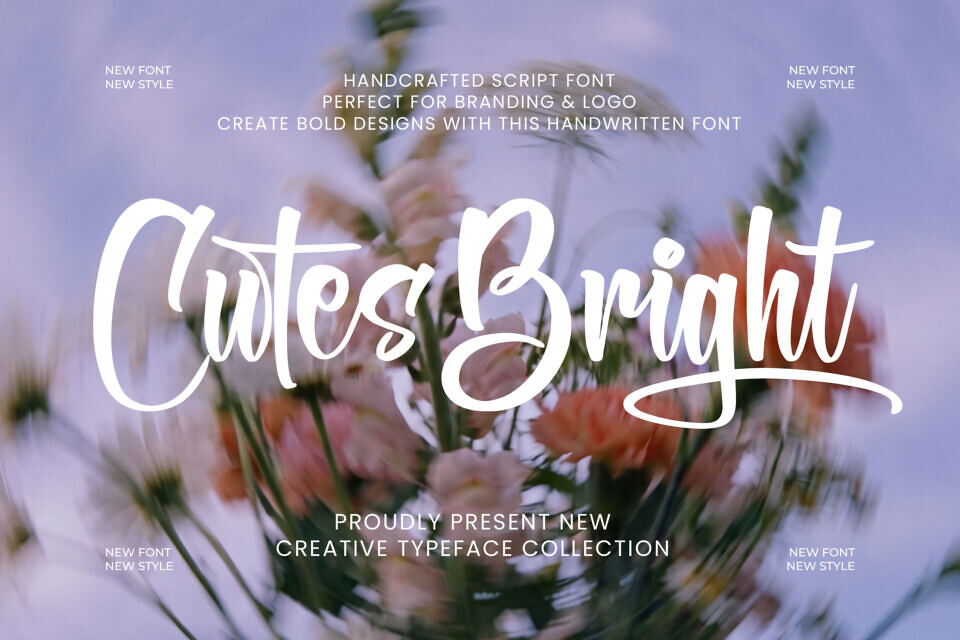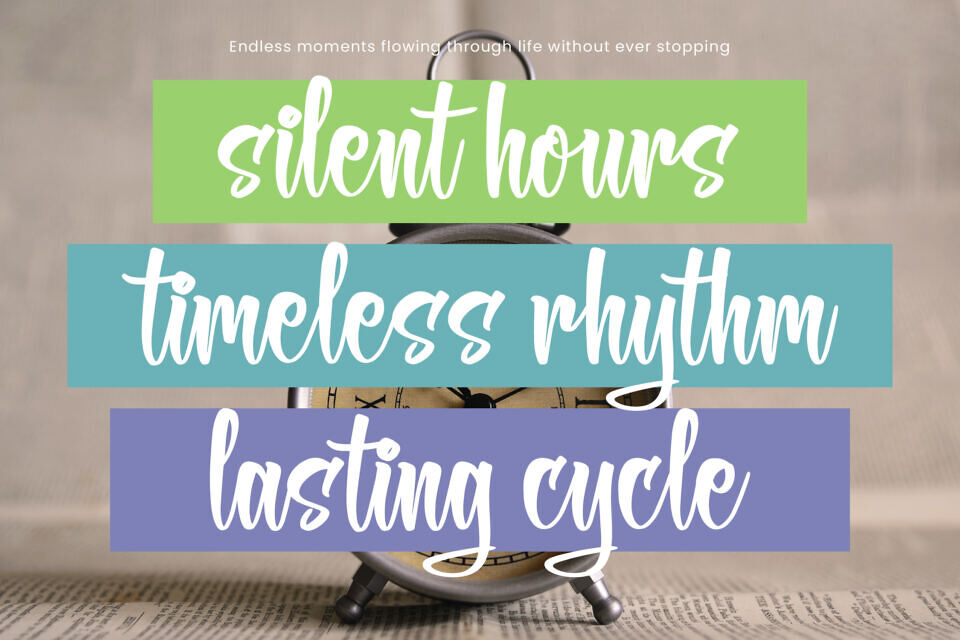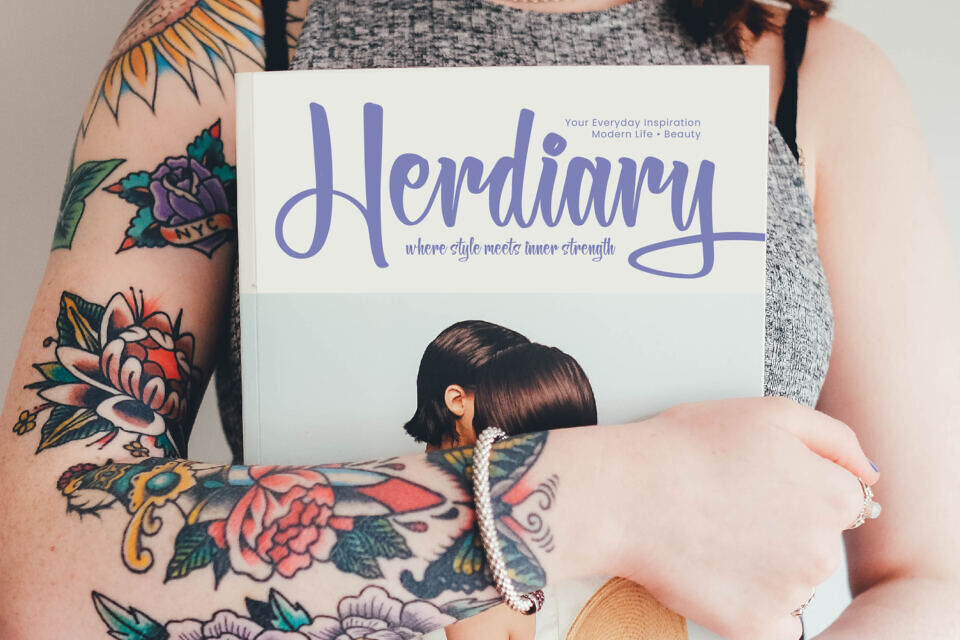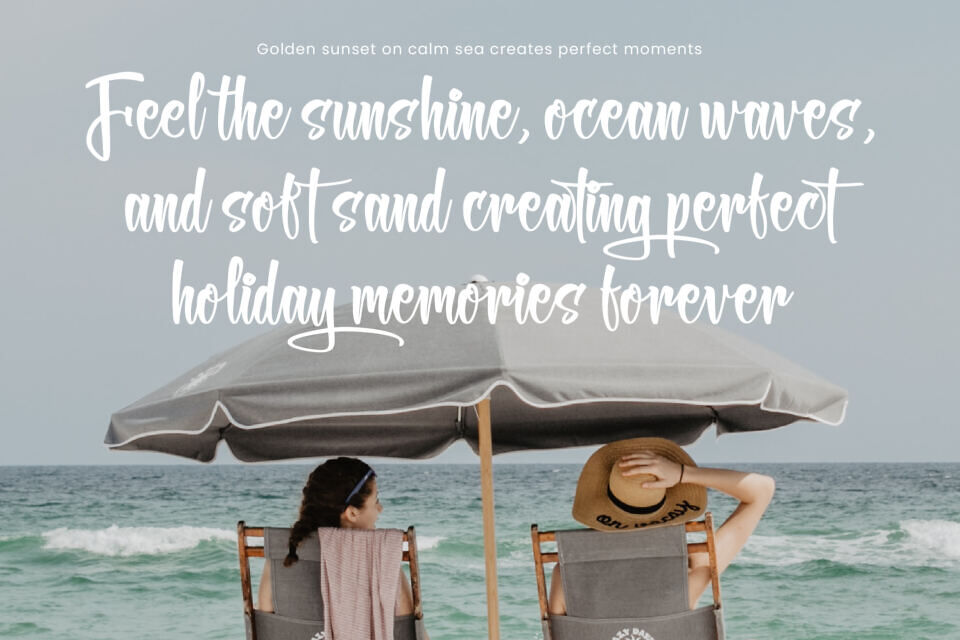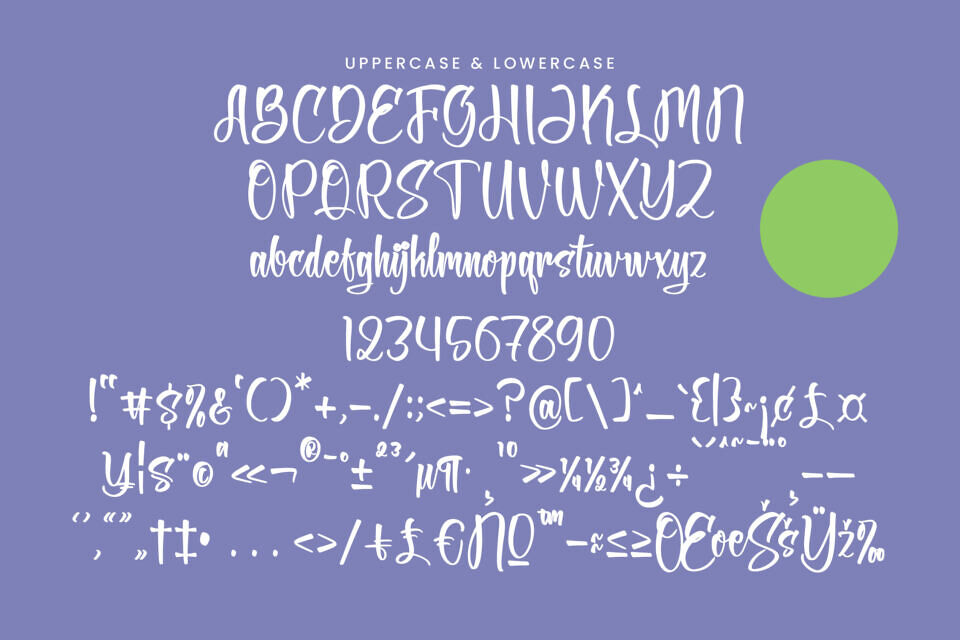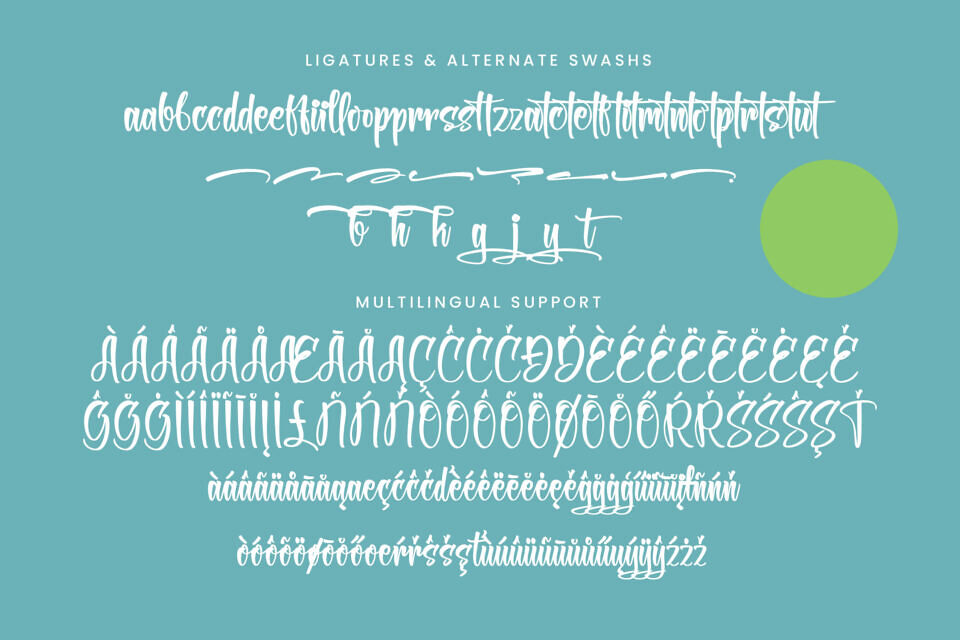
Cutes Bright Font
Cutes Bright is a charming handcrafted script font designed to bring warmth, creativity, and personality to your designs. Featuring smooth handwritten strokes, playful curves, and beautiful flowing swashes, this typeface creates an inviting and cheerful look that feels both modern and authentic.
Whether you’re creating branding materials, product packaging, social media content, wedding invitations, or stylish logos, Cutes Bright adds a fresh and joyful character that instantly captures attention.